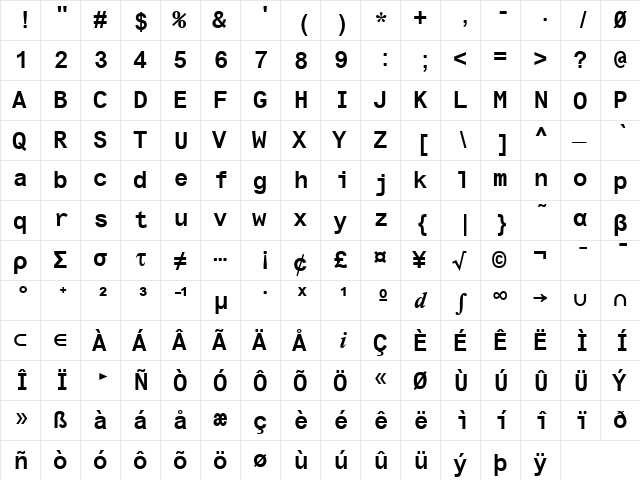
Ti92Pluspc Bold
Design Context for Ti92Pluspc Typeface
Ti92Pluspc is a composed and adaptable typeface that performs quietly and consistently across a wide range of design contexts. Its bold stroke weight gives it real presence on the page.